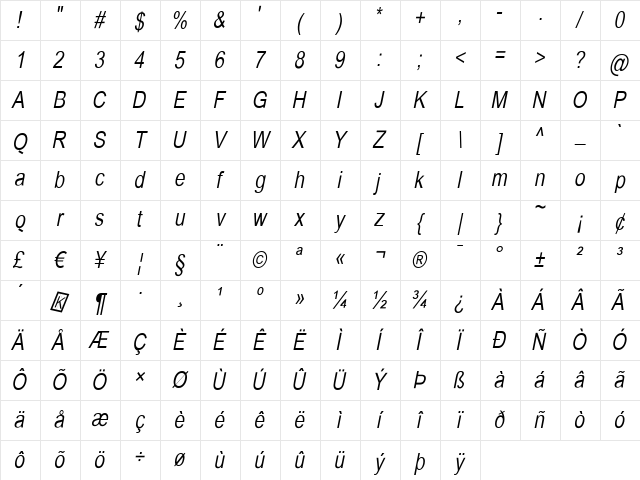
BabelSans Medium Italic Free Font
BabelSans Medium Italic
Design Context for BabelSans
BabelSans is a composed and adaptable typeface that performs quietly and consistently across a wide range of design contexts. The slanted form adds forward momentum and visual energy.
Pro Tip: Use BabelSans for emphasis, pull quotes, and subheadings where its slanted energy can add rhythm to the layout.